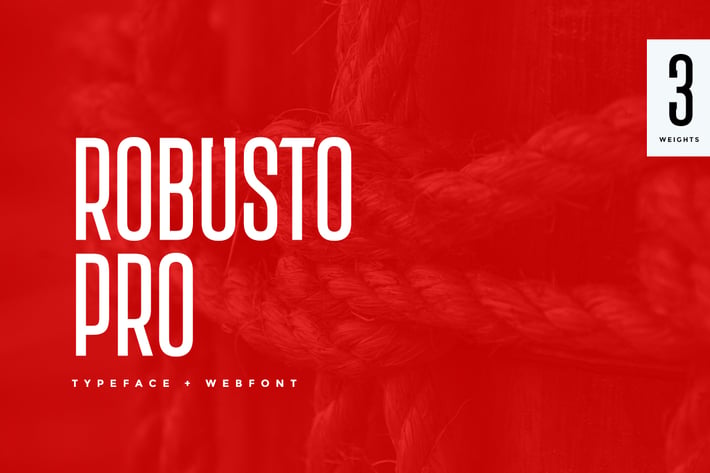
Robusto Pro Modern Typeface + WebFont
Robusto Pro Typeface
Robusto Pro is a modern Sans Serif typeface very much suitable for Film Posters, headlines, Block letter, Subheading, Logo Designs, Big Banners. Classic & Decorative Typography Web Designs.
Font Designed and Crafted by Maya GSyle, Distributed by Webhance Studio.